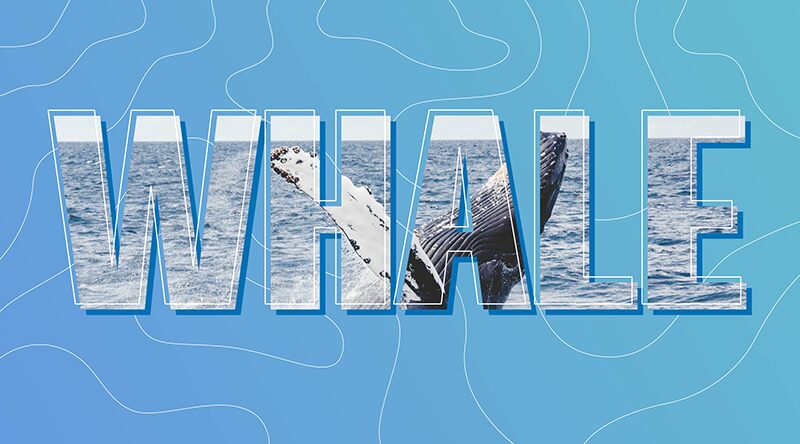
Discover HFWhale, a typographic marvel from HyFont Studio that effortlessly balances boldness with precision. This sans serif gem, with its semi-condensed width, is a versatile powerhouse engineered for impact. Its sturdy and clean lines speak of modernity while offering an air of approachability that resonates across various creative spectrums.
Perfect for commanding headlines, engaging branding, and concise packaging, HFWhale's assertive presence does not overshadow its ability to play well in both digital and print landscapes. Whether it’s the cornerstone of a minimalist logo or the strength behind an impactful poster campaign, this font is poised to elevate your project with its distinct personality and functional grace. Explore HFWhale's potential to harness the power of type in your next creative venture.
HFWhale
HyFont Studio